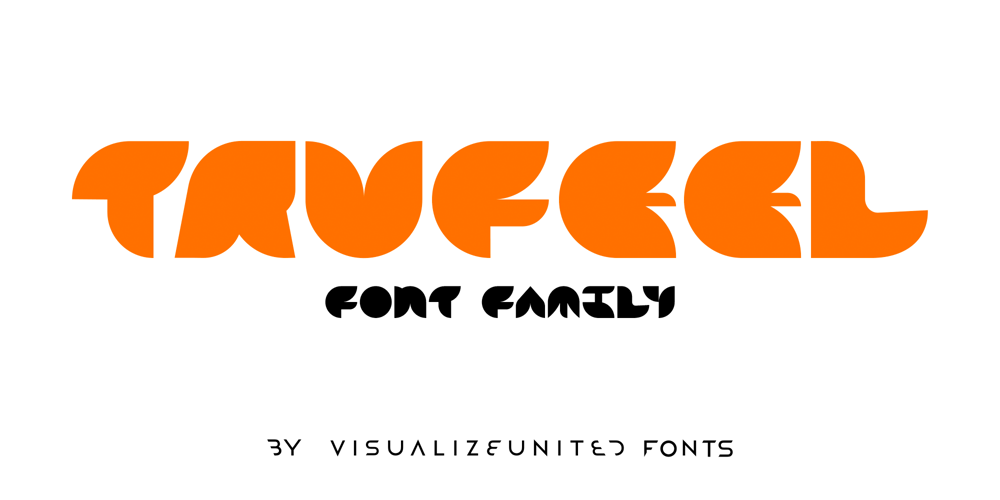
Tru Feel Font Family was designed by Tony Evreniadis and published by VisualizeUnited Fonts. Tru Feel contains 2 styles and family package options. The TruFeel Font Family is a display typeface, with a flower-like design. Having a dynamic look and feel, pairing elegantly with the Soul Typeface, it is suggested for titles, posters, ads, logos, tv and beyond. It is offered in a Latin, Extended Latin & Central European character set, under two styles: TruFeel Regular and TruFeel–BE Regular.Have fun designing your projects and feel free to share the real 😁 (applications/designs) with me, if you please!Thank You!